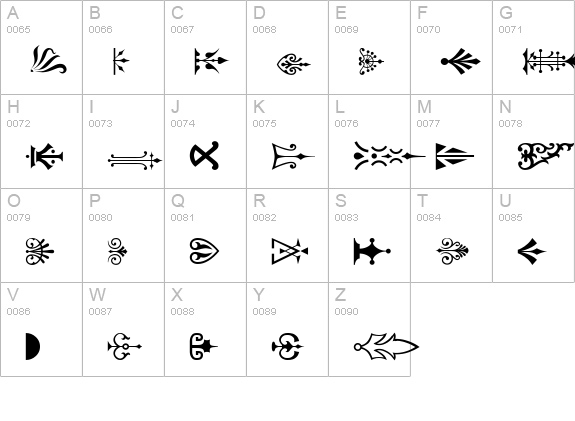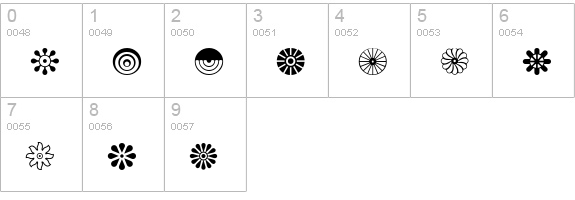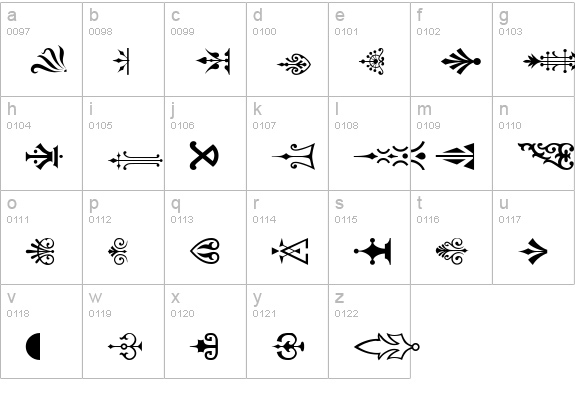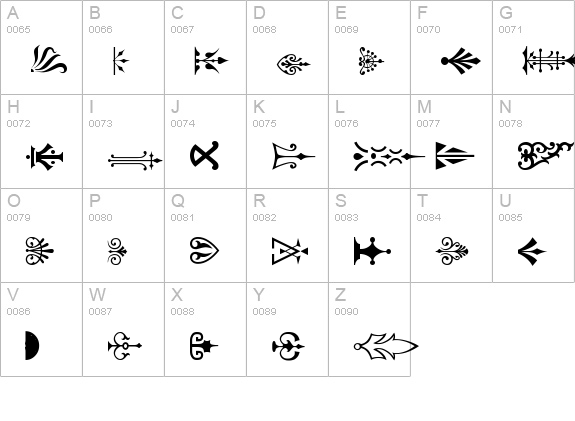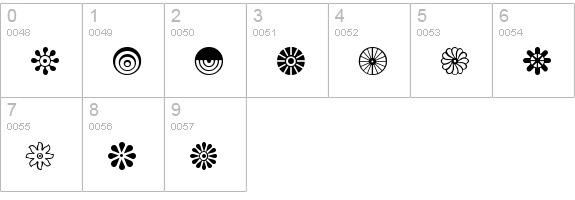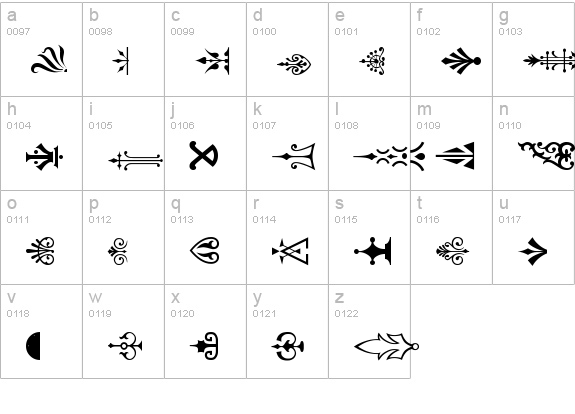
PC Ornaments Font Details
Introducing PC Ornaments, a captivating and versatile font that will add a touch of elegance and sophistication to any project. With its intricate and ornate design, PC Ornaments is the perfect choice for those seeking to create stunning and eye-catching designs. This font is truly a work of art, featuring beautifully crafted ornaments and flourishes that will effortlessly enhance the aesthetic appeal of your designs. Whether you are working on invitations, logos, posters, or any other creative project, PC Ornaments will undoubtedly elevate your work to new heights. One of the most remarkable aspects of PC Ornaments is that it is available for free! Yes, you read that right - this extraordinary font can be yours without spending a penny. Simply head over to FontsMarket.com, and you can easily download PC Ornaments to start exploring its vast potential. The versatility of PC Ornaments knows no bounds. Its intricate details make it a perfect choice for wedding invitations, where it can add a touch of luxury and romance. Additionally, it can be used for branding purposes, giving your logo a unique and memorable look. And for those who want to design eye-catching posters or flyers, PC Ornaments will instantly grab attention and leave a lasting impression on your audience. With its wide range of characters and glyphs, PC Ornaments provides endless possibilities for customization and creative expression. Whether you want to create a vintage-inspired design or a modern and sleek look, this font has got you covered. So, don't miss out on the opportunity to enhance your designs with the captivating beauty of PC Ornaments. Visit FontsMarket.com today, where you can freely download this extraordinary font and unlock a world of creative possibilities.